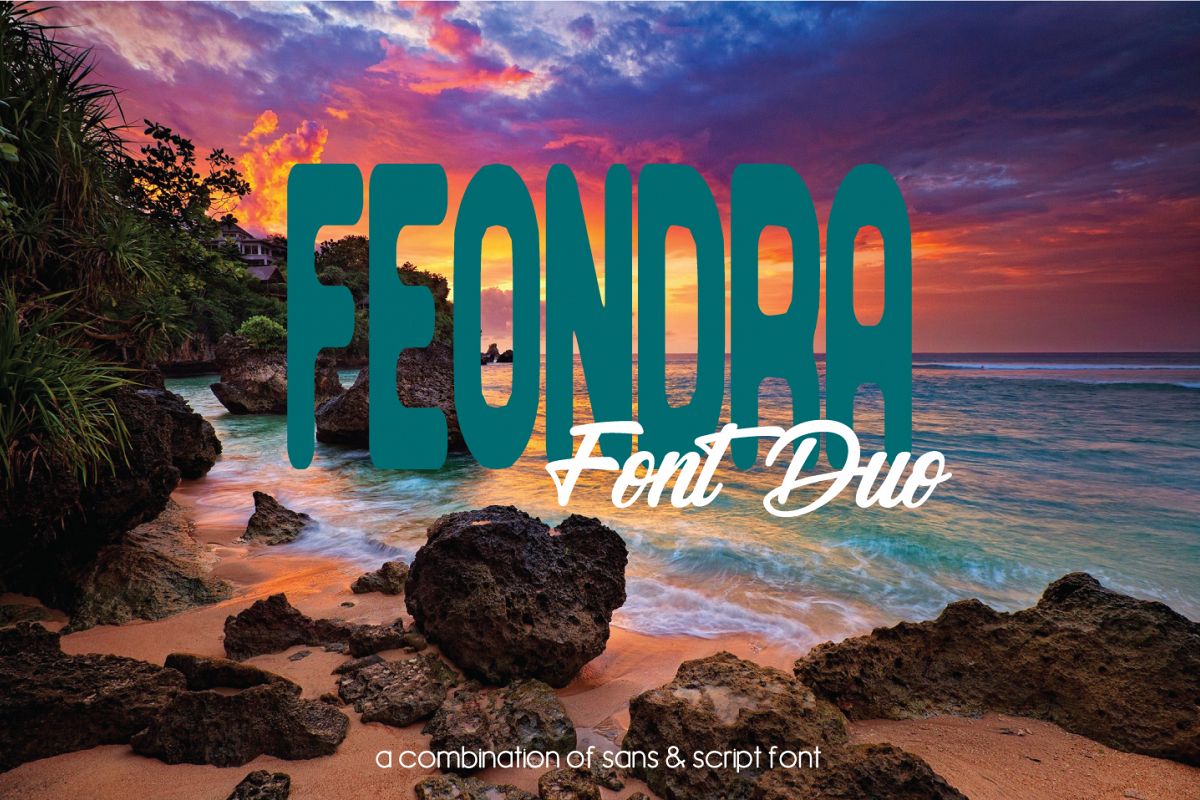
Feondra Font Duo | a Combination of Sans & Script Font
The Feondra Font Duo consists out of a clean sans serif, combined with a stunning Script.
The Script and Sans perfectly combine, making it suitable for a large range of uses. Feondra Font Duo is perfect for many different projects such as logos & branding, invitations, stationery’s, wedding designs or anything that needs a handwriting look.